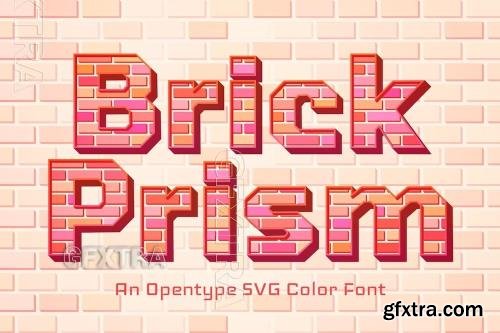
Brick Prism font
Brick Prism is a bold, geometrical typeface that fuses urban grit with a striking 3D effect. Its blocky, brick-like letterforms stack with precision, creating a strong, architectural presence. Perfect for street-style branding, posters, and edgy designs, Brick Prism brings a modern, city-inspired energy, turning every word into a solid, dimensional statement